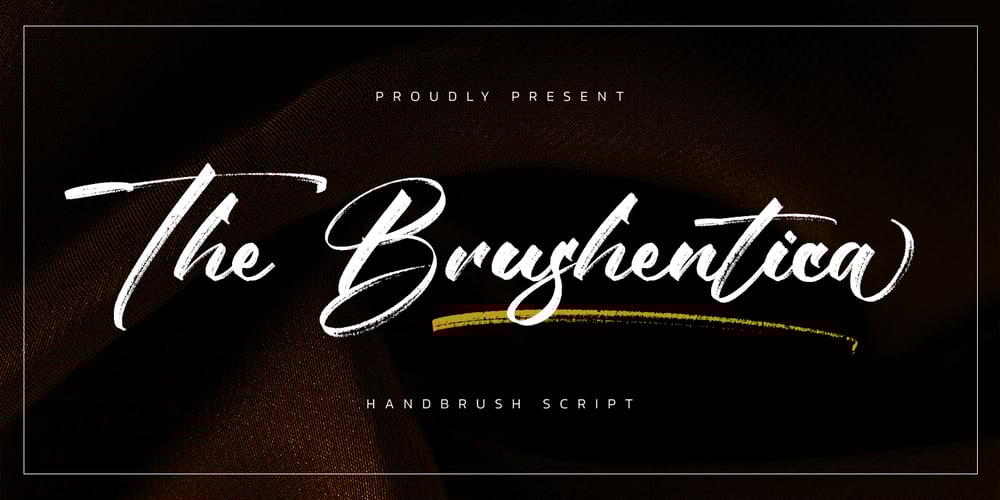
The Brushentica
The Brushentica font
The Brushentica Font Family was designed by Abdul Malik Wisnu and published by Almarkha Type. The Brushentica contains 3 styles and family package options. Introducing The Brushentica – Handbrush Script is a brush script that is written casually and quickly. Letters are made with brushes on paper. Then scanned and carefully drawn into vector format.That is why The Brushentica has charming, authentic and relaxed characteristic,has 2 styles of regular, slant, and swash with a more natural look to your text with a more natural look to your text.The Brushentica is perfect for homeware designs,branding projects, Logo, design, Quotes, Product packaging, Photography, Watermark.